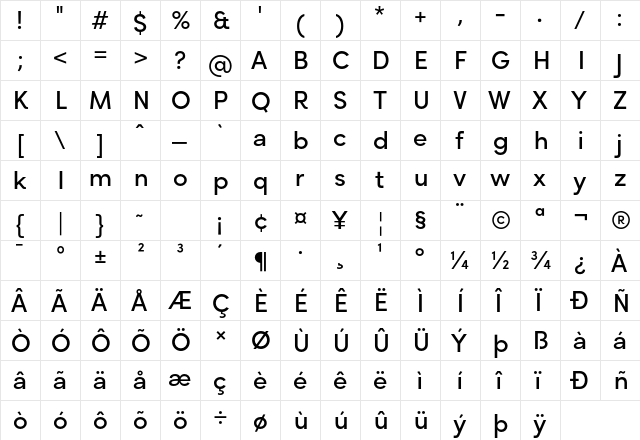
Rozanova HUM - Demo Semi Bold
| Foundry | Variable Type Foundry |
| Designer | Variable Type Foundry |
Design Context for Rozanova HUM - Demo Typeface
Rozanova HUM - Demo is a composed and adaptable typeface that performs quietly and consistently across a wide range of design contexts. The heavy weight commands attention and anchors typographic hierarchies.